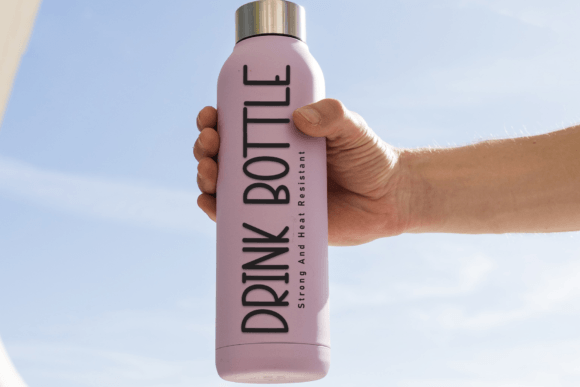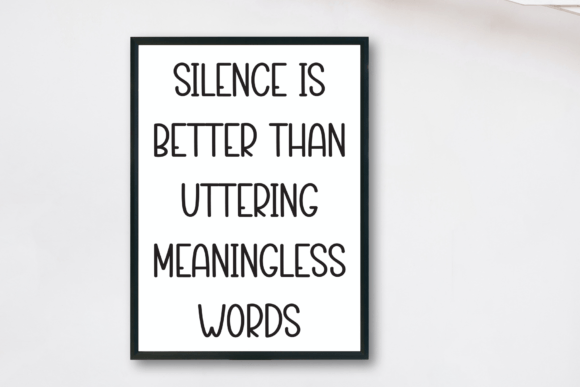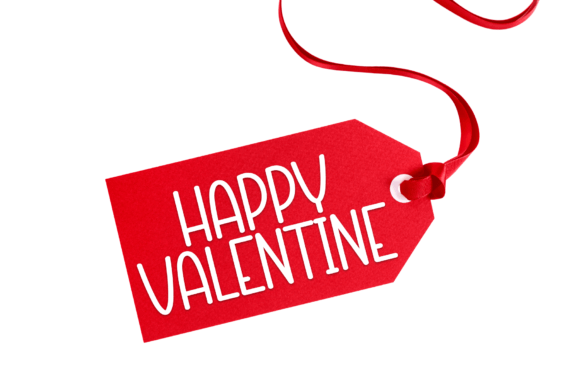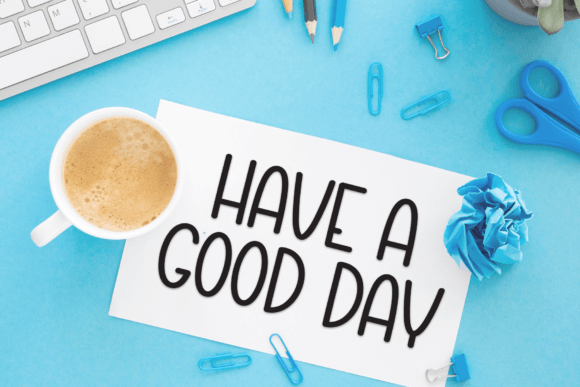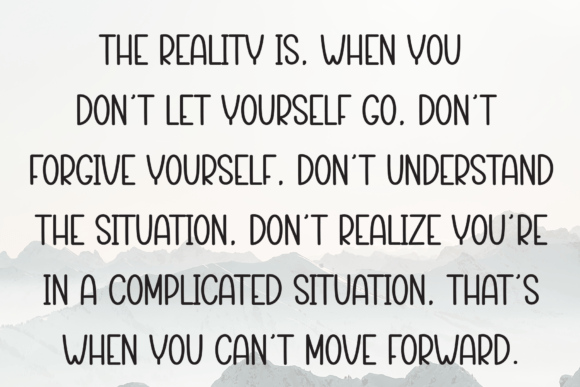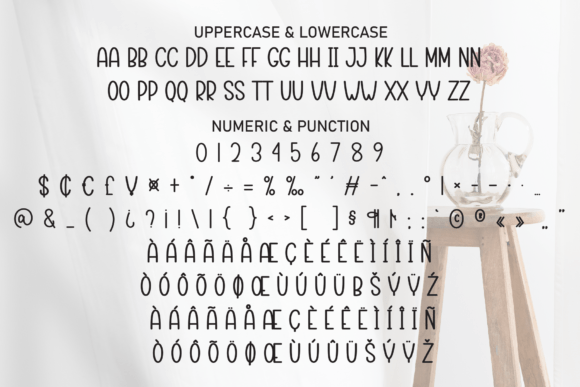
Where Typography Meets Personality
Have you ever found yourself pouring over design inspiration boards, scrolling through Pinterest, and bookmarking fonts that speak to your brand’s unique voice? For designers, the quest for the perfect font is a never-ending journey. It’s that moment when you stumble upon a font that perfectly captures the essence of your brand’s personality – and that’s exactly what happens when you meet the Aesthetic Font.
This casual sans-serif font is more than just a typeface; it’s an extension of your brand’s identity. With its clean lines, rounded edges, and subtle variations in stroke width, Aesthetic Font brings a sense of warmth and approachability to any design. Whether you’re creating a logo, branding materials, or editorial content, this font is a valuable addition to any designer’s toolkit.
Aesthetic Font Key Features
- Unique Characteristics: The Aesthetic Font features a unique blend of modern and classic design elements, with intricate details and subtle flourishes.
- Kerning and Ligatures: Includes advanced kerning and ligature pairs for improved text readability and a more polished appearance.
Aesthetic Font Review
Overall, I have mixed feelings about the Aesthetic Font. While it has some great qualities, it’s not without its limitations. Let’s dive in and explore both the good and the bad.
- Unique Style: The Aesthetic Font has a distinctive, modern aesthetic that sets it apart from more traditional fonts. It’s perfect for designers looking to add some flair to their projects.
- High-Quality Vectors: The font files are well-designed and easy to work with, making it a great choice for vector graphics and illustrations.
- Wide Character Set: The font includes a wide range of characters, including accents and symbols, making it suitable for international designs.
- Legibility Issues: At smaller font sizes, the Aesthetic Font can be difficult to read, especially for those with visual impairments.
- Limited Language Support: While the font includes a wide range of characters, it may not be suitable for languages that require more complex typography, such as Arabic or Chinese.
- Not Ideal for Body Text: Due to its unique style, the Aesthetic Font is best suited for headings and titles. It may not be the best choice for large blocks of body text.
While the Aesthetic Font has some great qualities, its limitations may make it less suitable for certain projects. However, for designers looking to add a touch of modern style to their designs, it’s definitely worth considering.
Getting the Most Out of Aesthetic Font
To get the most out of Aesthetic Font, use it sparingly and in context. Aesthetic fonts are best used for headings and titles, as they can add a touch of elegance and sophistication to your design.
Aesthetic Font is commonly used in:
- Home decor and furniture design
Alternatives to Aesthetic Font for Designers
Playfair Display is an elegant, high-end serif font ideal for use in headings, titles, and logos. It features intricate details and is often used in luxury branding and high-end publications. When to use: luxury branding, high-end publications, and formal invitations. Compared to Aesthetic Font, Playfair Display is more ornate and sophisticated, making it suitable for projects that require a touch of luxury.
Great Vibes is a modern, elegant script font perfect for use in headings, titles, and quotes. It features a flowing, handwritten style and is often used in fashion, beauty, and lifestyle branding. When to use: fashion, beauty, and lifestyle branding, as well as quotes and testimonials. Compared to Aesthetic Font, Great Vibes is more dynamic and expressive, making it suitable for projects that require a personal touch.